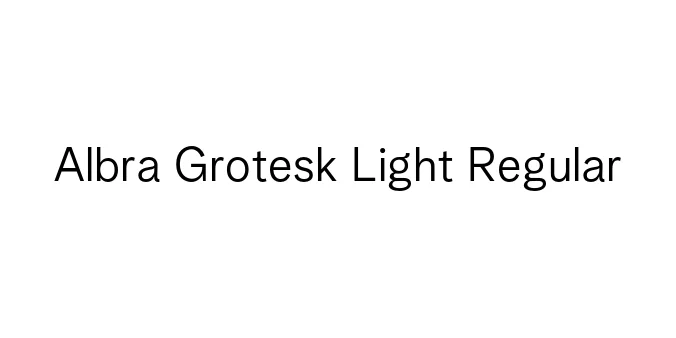
Albra Grotesk Light Regular
Designed by Bumblebee (BlackFoundry)
Albra Grotesk Light Regular is a sophisticated sans-serif typeface designed to serve as the modern, functional companion to the original Albra serif family. It strikes a perfect balance between high-contrast grotesque aesthetics and a clean, geometric structure, making it an incredibly versatile choice for contemporary design projects. The Light weight, in particular, offers a refined and airy quality that ensures clarity while maintaining a sense of high-end elegance.
Developed by the studio Bumblebee, this font family bridges the gap between classic Swiss typography and modern humanist influences. Its open apertures and consistent stroke widths make it highly legible in both digital and print environments. It is frequently chosen by designers who need a typeface that communicates professionalism without sacrificing artistic character, especially in layouts requiring a minimalist touch.
Albra Grotesk Light Regular Best Uses
Ideal for minimalist landing pages and intuitive user interfaces.
Perfect for creating sophisticated logos and cohesive brand identities.
Excellent for high-end magazine layouts and digital storytelling.
Used in premium print ads and clean social media graphics.